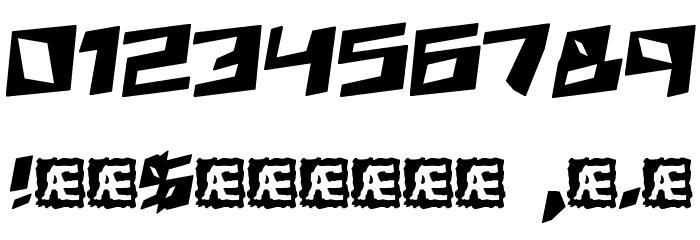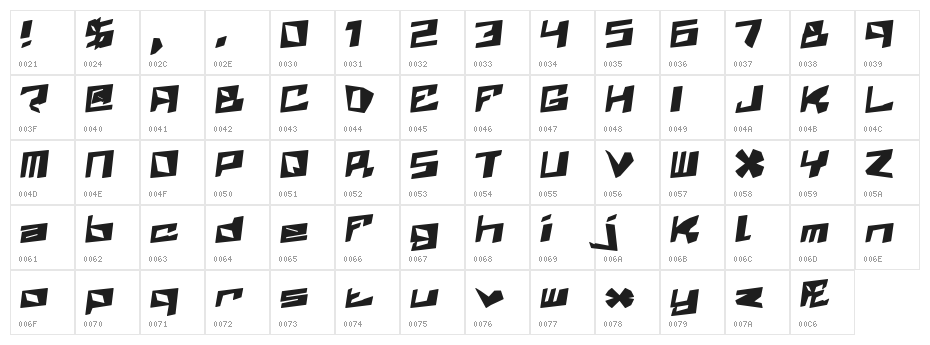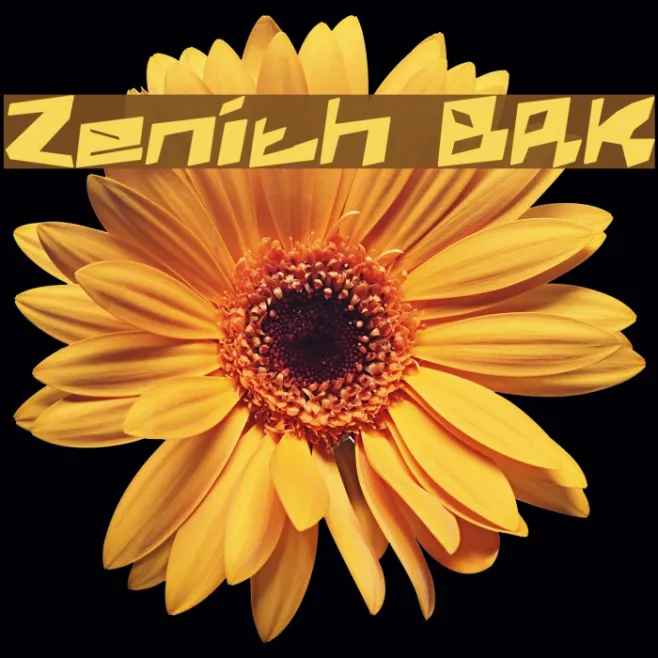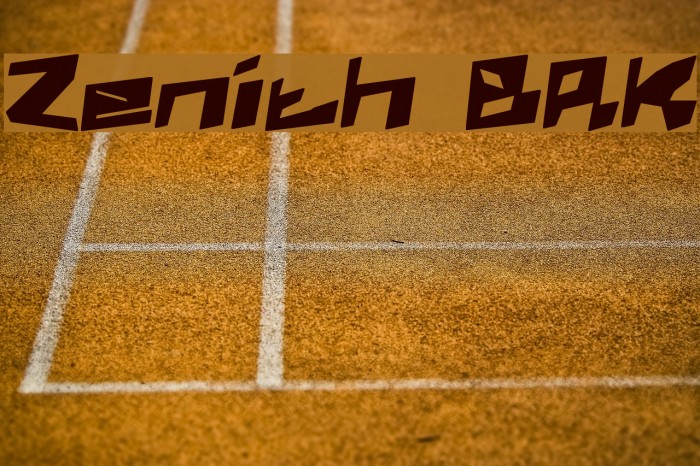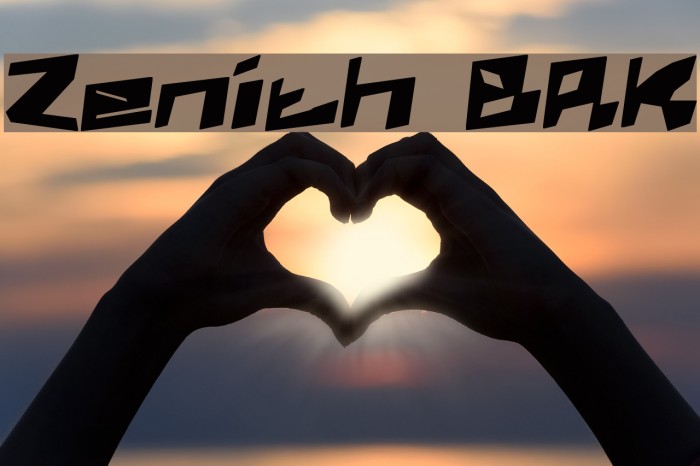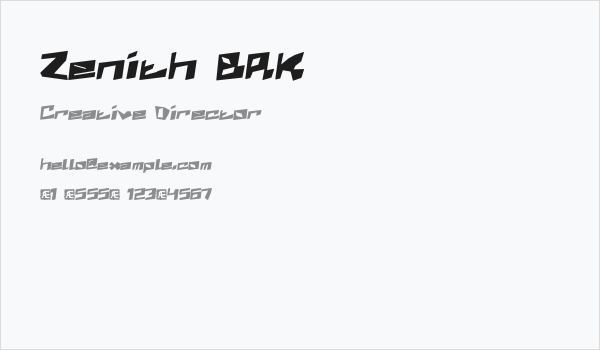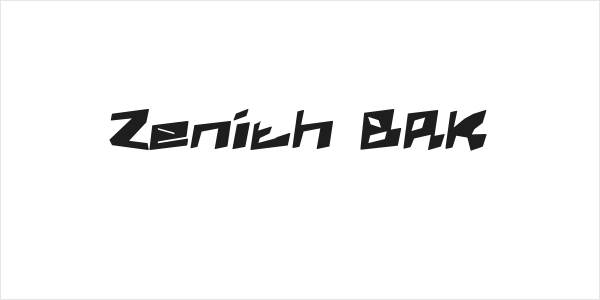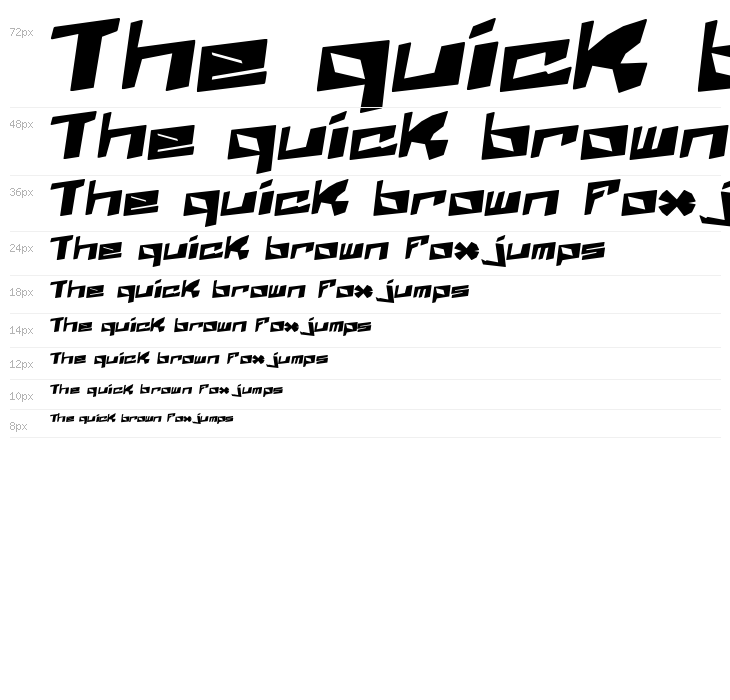
Zenith BRK Font
Zenith BRK Description
This font exhibits a bold and dynamic style with sharp, angular edges and a futuristic flair. The characters are heavily stylized, featuring a slanted orientation that adds a sense of motion and energy. The uppercase and lowercase letters maintain a consistent design, with exaggerated geometric forms and a slightly condensed appearance. Numbers and special characters follow the same aesthetic, ensuring a cohesive look across all glyphs. The font's unique design makes it stand out, ideal for projects that require a modern and edgy touch.
| Overall Style | Futuristic, Dynamic |
| Proposed Projects | Ideal for sci-fi themed designs, video game titles, posters, and branding that requires a modern, edgy look. |